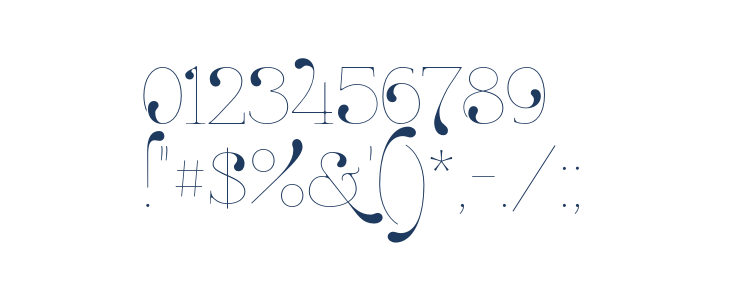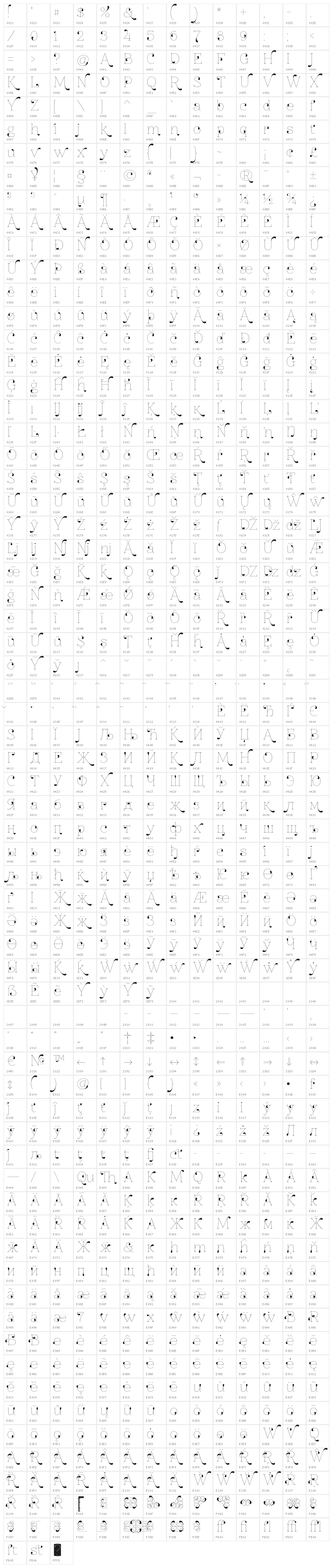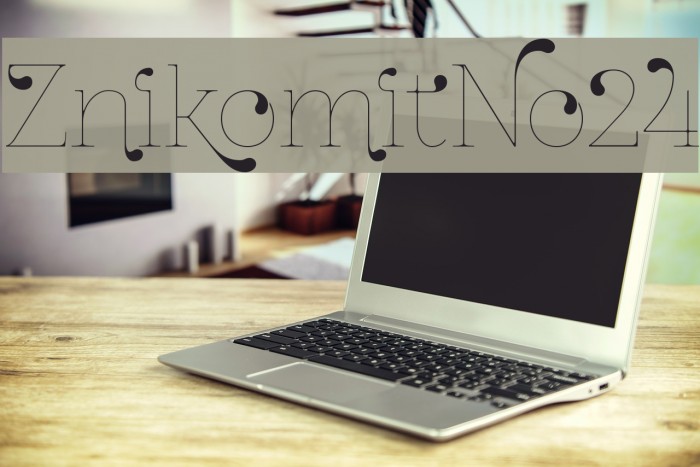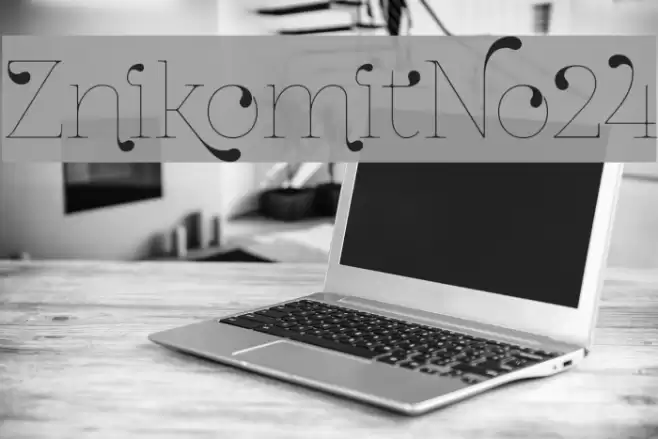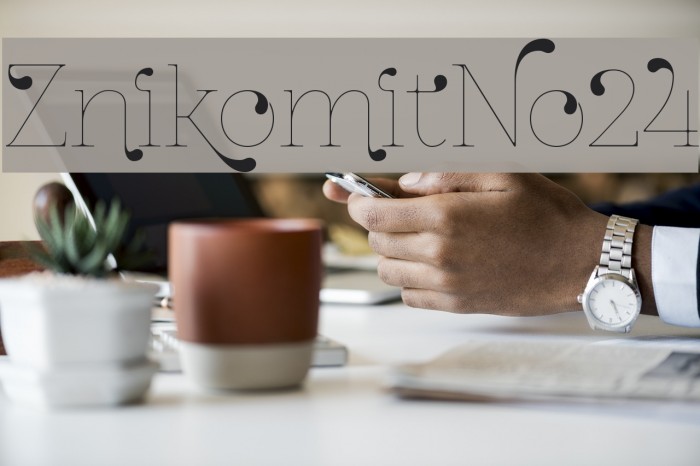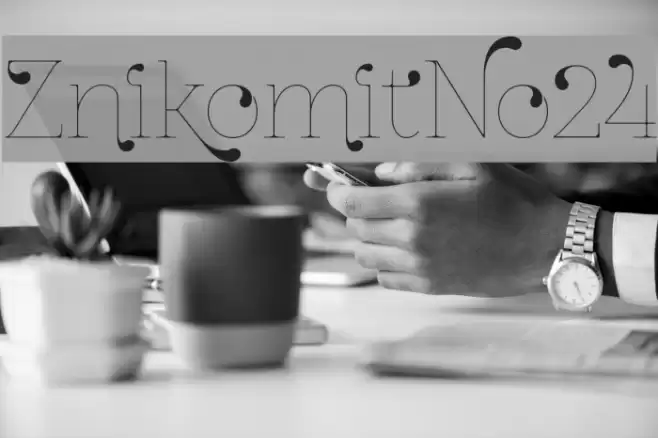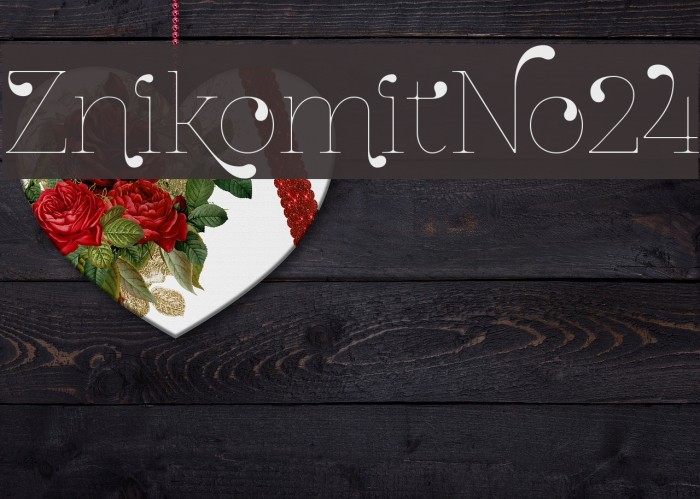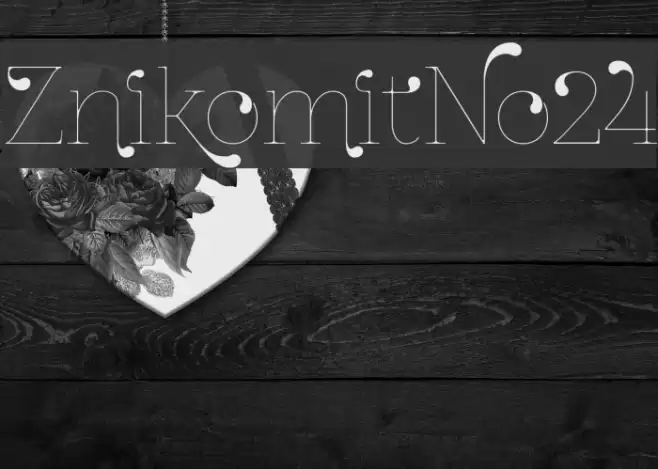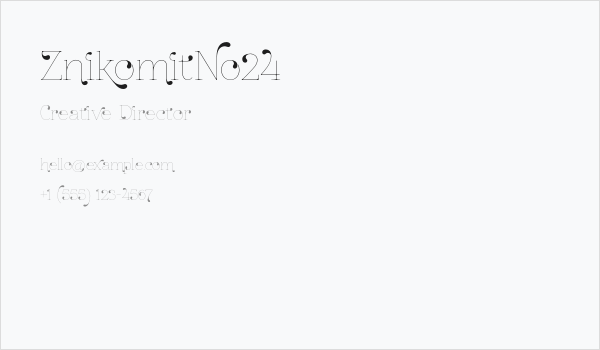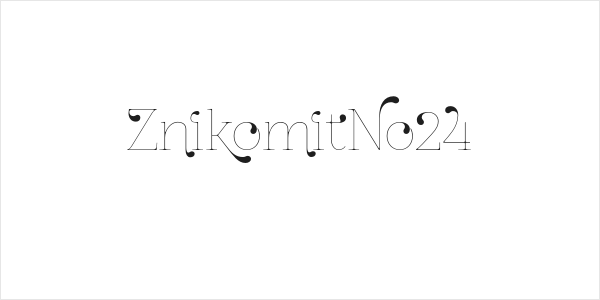
ZnikomitNo24 Font
ZnikomitNo24 Description
This font features a unique blend of elegance and playfulness, characterized by its thin, delicate strokes and distinctive ornamental flourishes. Each letter is adorned with whimsical, teardrop-like embellishments that add a sense of movement and flair. The uppercase letters stand tall and slender, while the lowercase letters maintain a consistent flow with rounded forms. Numbers and special characters are crafted with the same attention to detail, ensuring a cohesive look across all glyphs. The overall design is both sophisticated and artistic, making it suitable for creative projects that require a touch of personality.
| Proposed Projects | Ideal for wedding invitations, artistic posters, branding projects, and editorial design. |